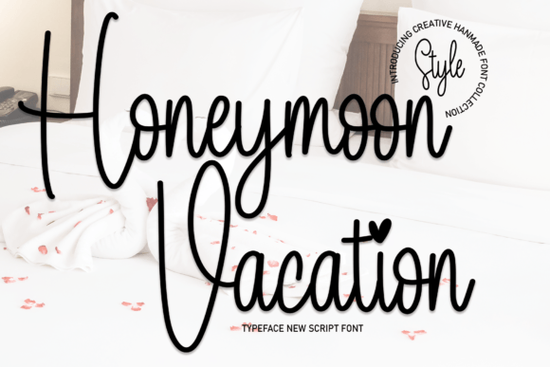
If you need a clean, handwritten typeface that feels personal but still professional, Honeymoon Vacation Font delivers exactly that. Designed with smooth curves and natural stroke variations, it brings a relaxed look to logos, branding kits, and quote graphics. Whether you run a small boutique, create print-on-demand merchandise, or design wedding stationery, this script gives your layouts a human touch without sacrificing readability.
What makes this handwritten style stand out?
Unlike overly decorative scripts that struggle at smaller sizes, this font keeps its letterforms open and well-spaced. The subtle baseline bounce and gentle swashes create movement without looking cluttered. Each glyph carries a hand-drawn quality, so your designs feel crafted rather than automated. The character set includes uppercase, lowercase, numerals, and basic punctuation, plus a few alternates for custom wordmarks. For crafters cutting vinyl or small business owners building a brand, that balance between elegance and everyday usability matters.
Which projects work best with this typeface?
Script fonts shine when they match the mood of the product. This style fits nicely into:
- Branding and logos for boutiques, cafes, and lifestyle creators
- Print-on-demand apparel like relaxed quote tees and tote bags
- Wedding stationery including invitations and place cards
- Social media graphics where short phrases need quick visual impact
Because the strokes are moderately thick, it holds up well on textured paper and cotton blends. If you design for dark backgrounds, test a light color variation first to ensure the connecting lines remain visible after printing.
How do I pair it with other fonts?
How do I get clean results on the first try?
Script typefaces need a little extra attention during layout. Keep these steps in mind before exporting:
- Enable contextual alternates to access connecting swashes and avoid letter collisions.
- Increase line spacing slightly when stacking words so descenders do not clash with ascenders.
Start with a simple mockup, adjust the tracking until the connections feel natural, and save your settings as a preset. A quick material test and spacing check will prevent reprints and keep your production schedule on track.